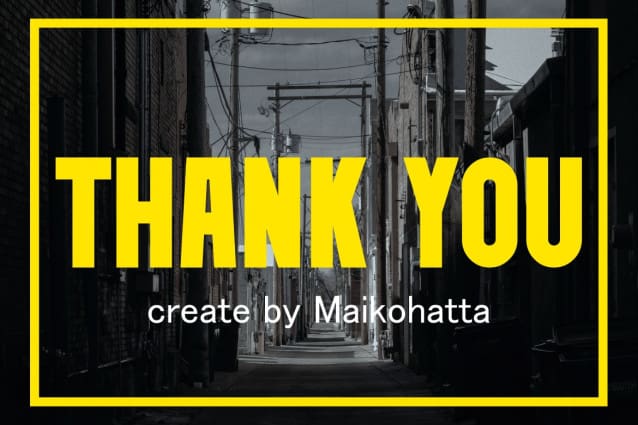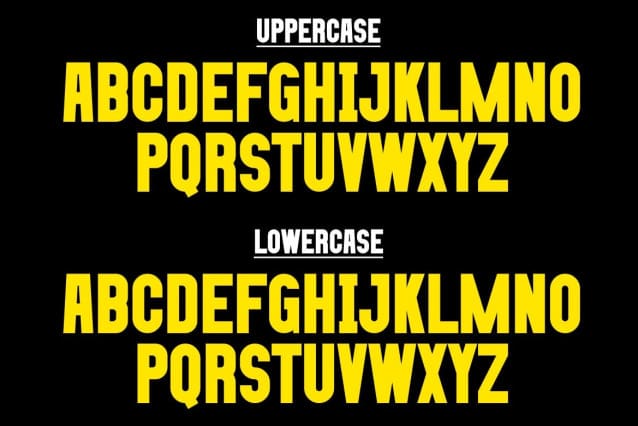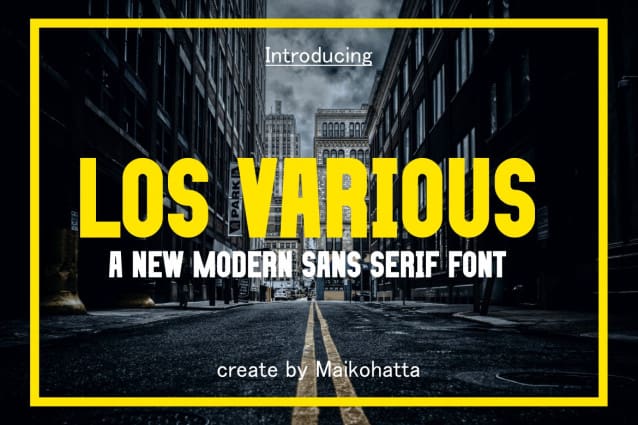
Los Various Font
Los Various Font – Modern Font is a bold and authentic display font. The font is suitable for any branding project like logo, template design, and many more. outstanding in a wide range of contexts.